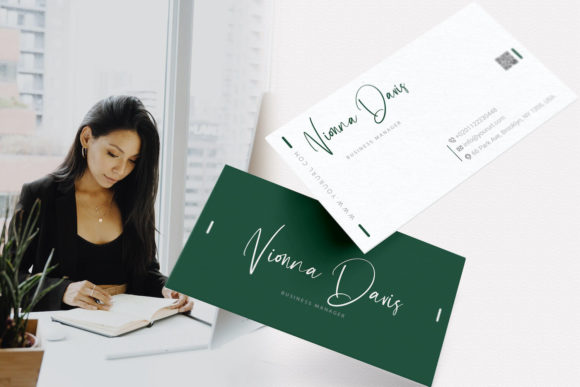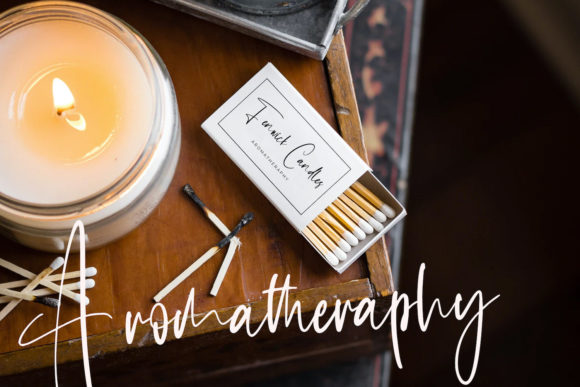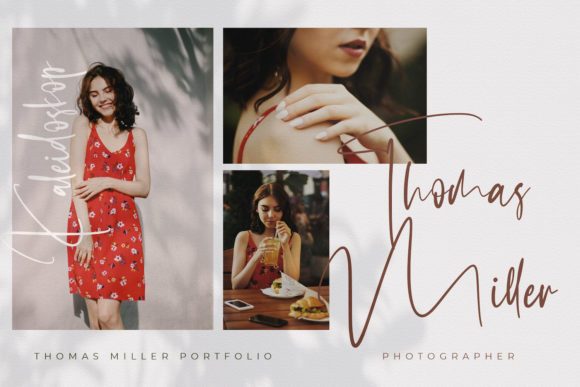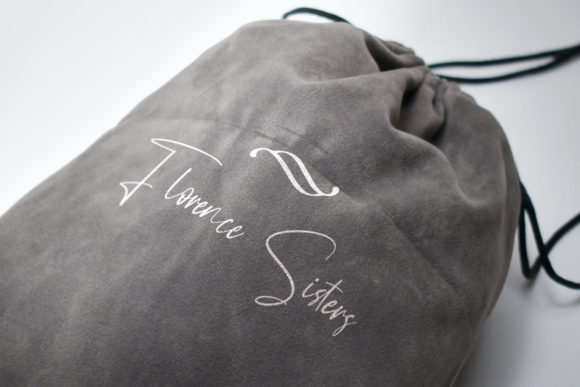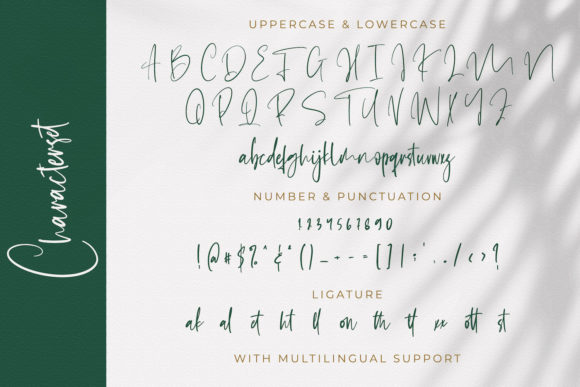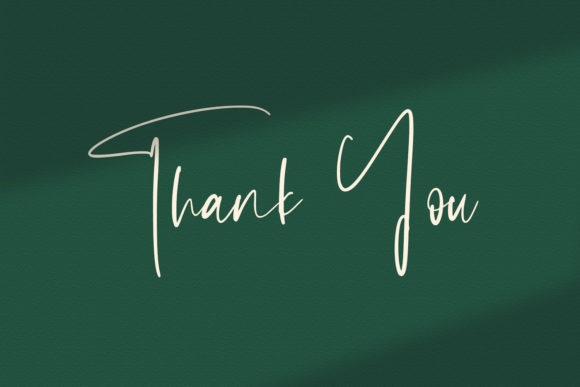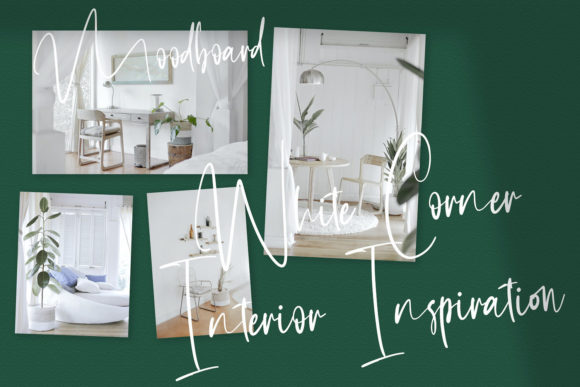
Gareth Bayu Font
About Gareth Bayu Font
Gareth Bayu is a thin and stylish cursive script font that brings a touch of luxury and sophistication to your design projects. With its elegant letterforms and flowing strokes, this font is perfect for adding a sense of refinement and beauty to any creative endeavor. Whether you’re working on branding, packaging, invitations, or social media graphics, Gareth Bayu font will elevate your designs and make them truly memorable.
The thin and stylish nature of Gareth Bayu font gives it a sleek and contemporary look. Its cursive script adds a sense of elegance and sophistication, making it suitable for a wide range of design projects. From high-end branding to wedding stationery, Gareth Bayu font adds a touch of luxury and class.
Gareth Bayu font is incredibly versatile, allowing you to create spectacular designs in various styles. Its thin letterforms and stylish cursive script make it perfect for modern and minimalist designs, as well as romantic and whimsical projects. It adapts effortlessly to different themes and aesthetics, giving you the flexibility to express your creativity.
Fall in love with the incredibly versatile style of Gareth Bayu font and let it inspire you to create stunning designs. Its graceful and flowing letterforms create a sense of movement and beauty, capturing the attention of your audience. Whether used for headlines, titles, or body text, Gareth Bayu font adds a touch of sophistication and charm.
Incorporating Gareth Bayu font into your design projects will bring a luxury spark and elevate the overall aesthetic. Its thin lettered and stylish cursive script create a visually striking impact, making your designs stand out. With Gareth Bayu font, you can create captivating and unforgettable designs.
In summary, Gareth Bayu is a thin lettered, stylish, and cursive script font that adds a luxury spark to your design projects. Its versatile style allows you to create spectacular designs in various themes and aesthetics. Embrace the elegance and sophistication of Gareth Bayu font and let it inspire you to create visually stunning and memorable designs.